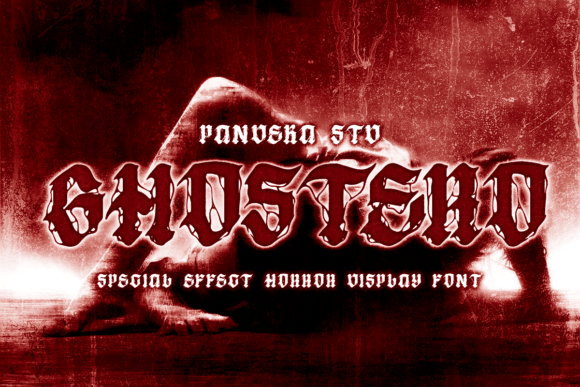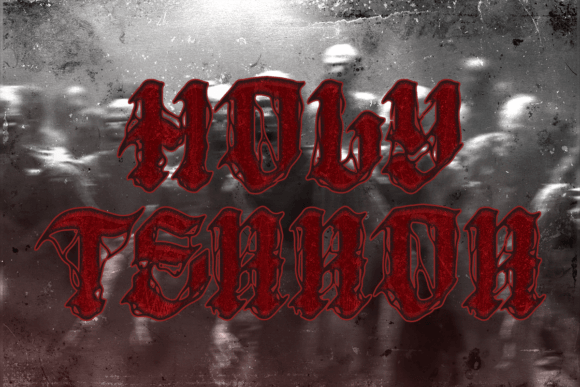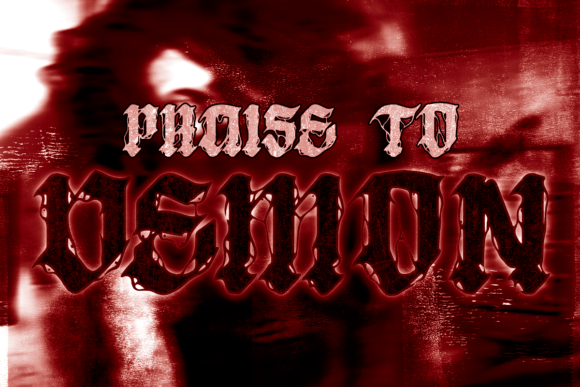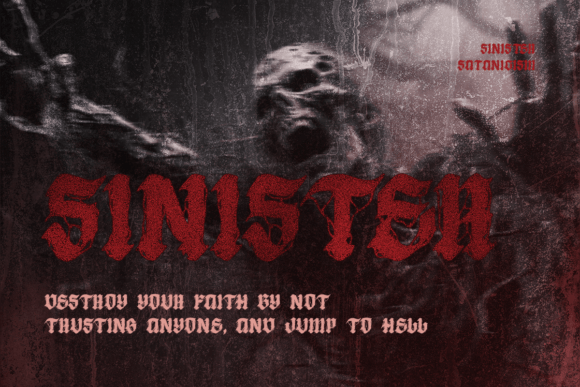
Ghostero Font
About the Ghostero Font
Unleash your creativity with Ghostero Font, a versatile font perfect for a wide range of applications. Ghostero is a striking and intricately detailed Horror Metal Display Font that will add a bold, edgy flair to your designs. Perfectly suited for intense and eerie projects, Ghostero is your go-to choice for creating powerful visuals that resonate with a dark, gothic atmosphere.
Ghostero excels in large-scale applications such as posters, album art, and logotypes for bands or brands with a gothic or heavy metal aesthetic. Its intricate details shine in headlines and short, impactful phrases, but its highly stylized nature makes it unsuitable for body text or UI elements where readability is paramount. Avoid using it for long paragraphs or small sizes.
Pairing Ghostero effectively requires a contrasting typeface. A clean sans-serif like Montserrat or a geometric sans-serif such as Futura would provide a strong counterpoint, creating visual interest and enhancing readability when used alongside Ghostero for secondary text or supporting elements.
The overall personality of Ghostero is bold, rebellious, and dramatic. It’s ideally suited for projects that demand a strong visual presence and communicate a dark, intense, or edgy message.
Ghostero Font Usage Examples
Ghostero Font Example